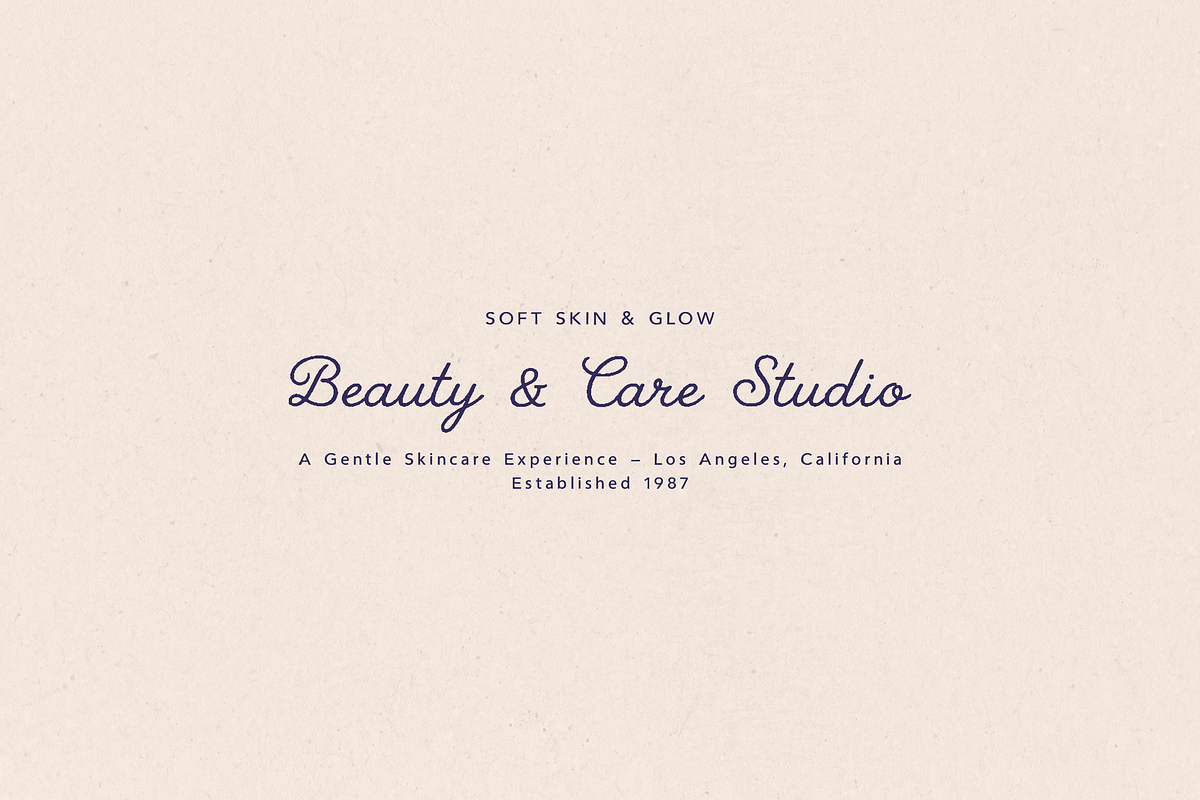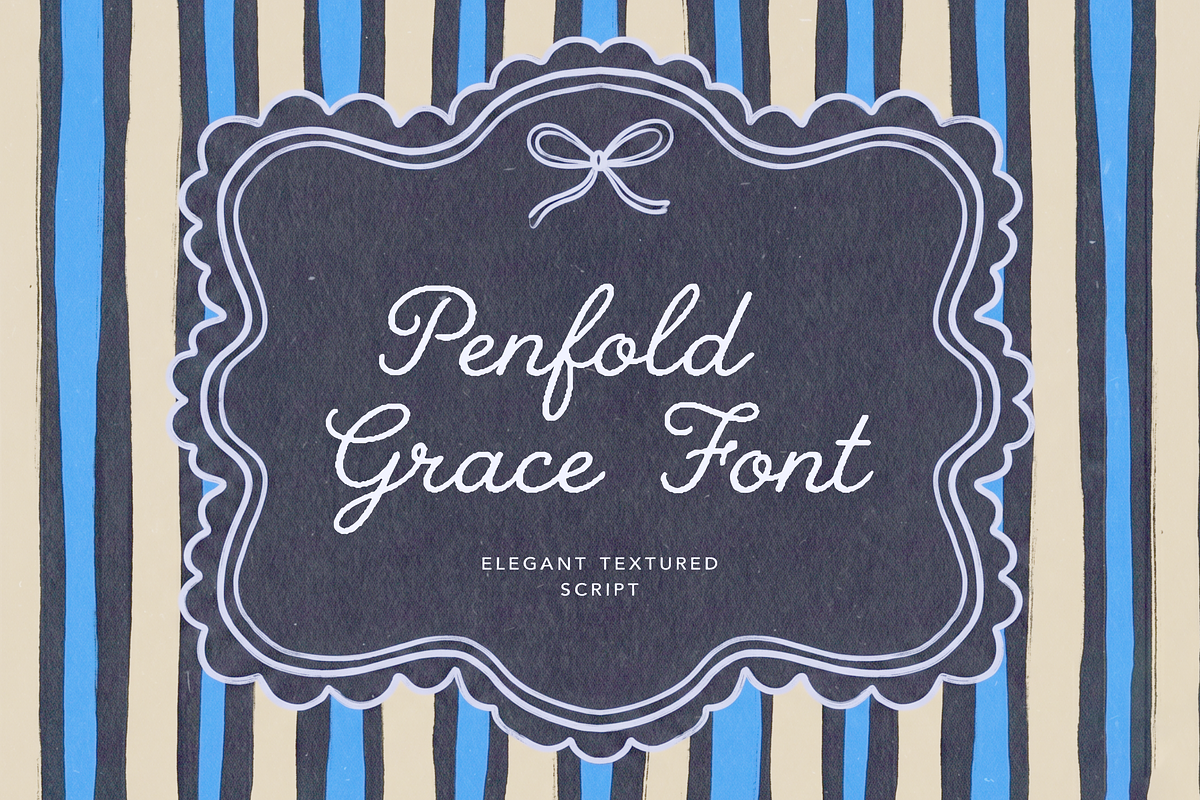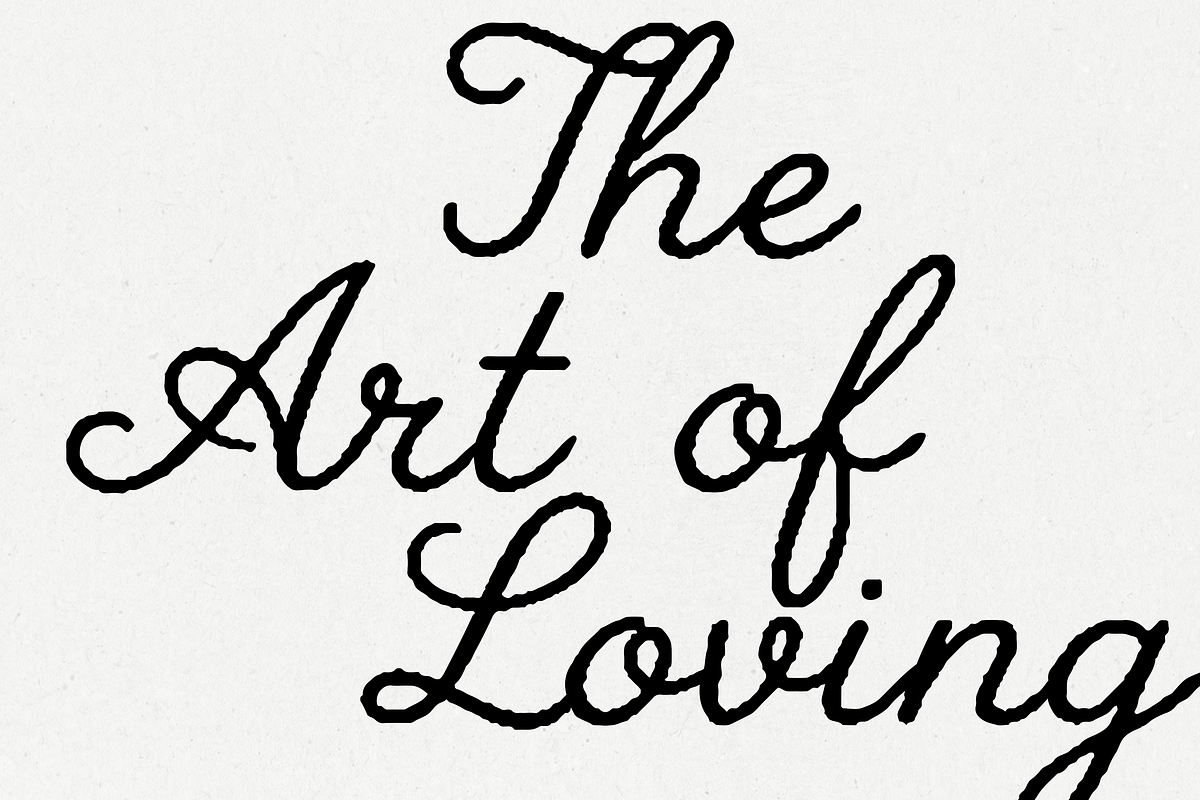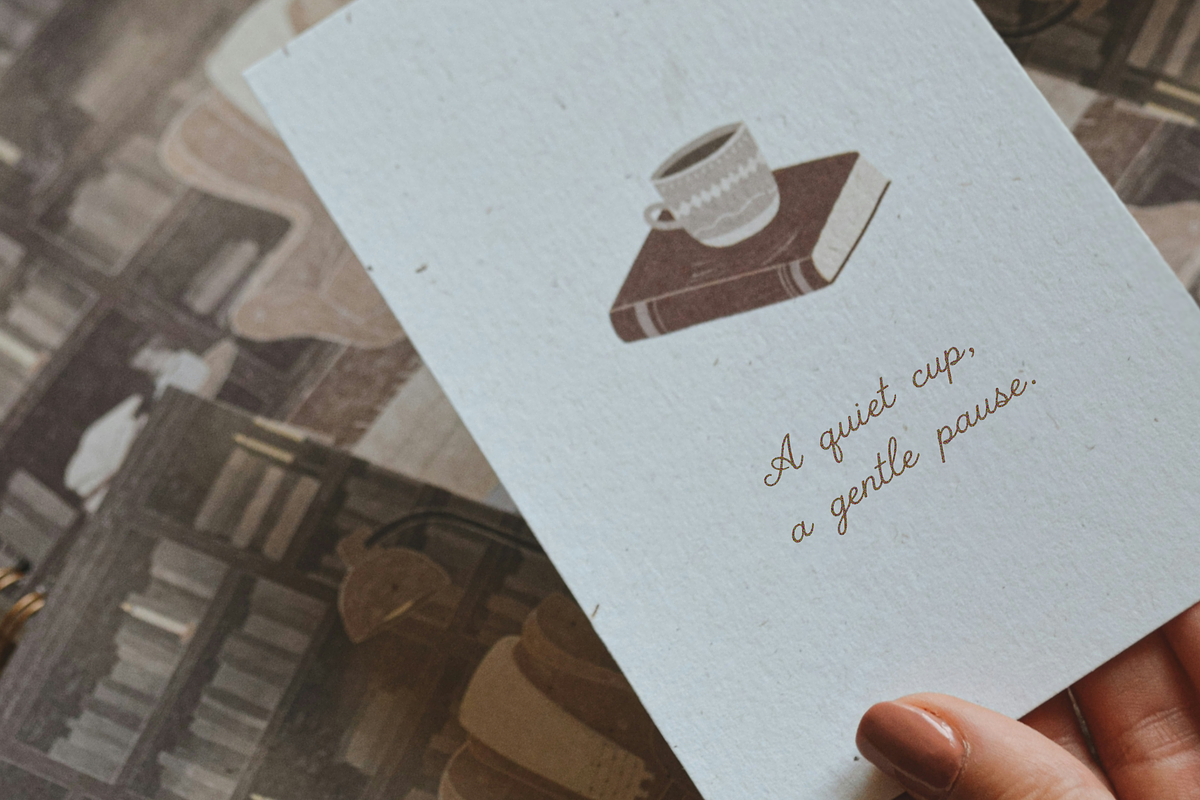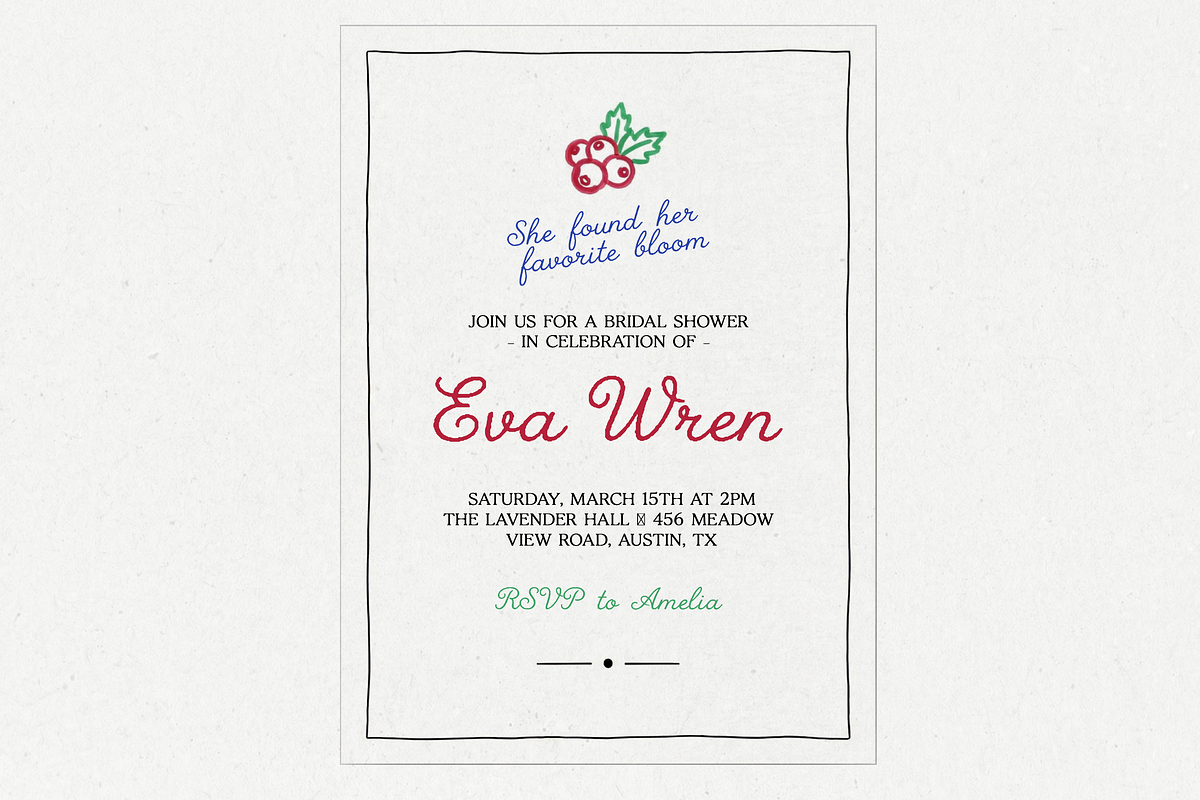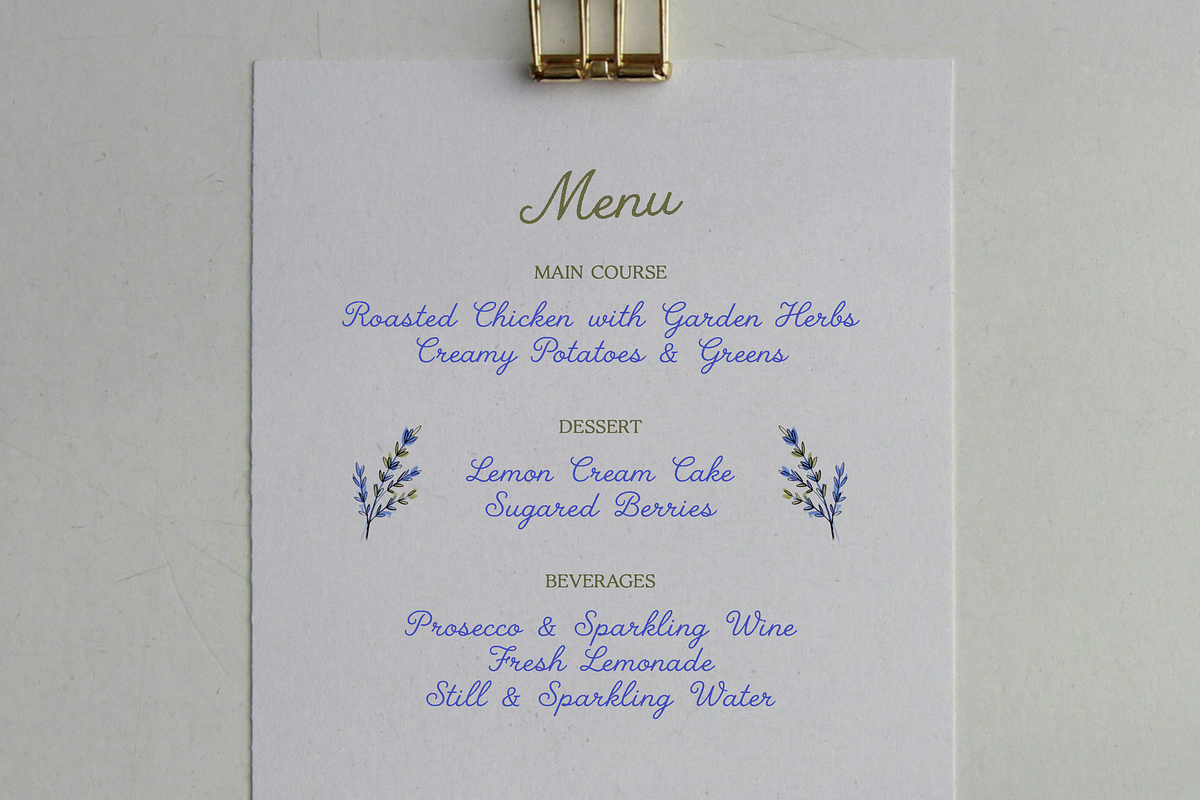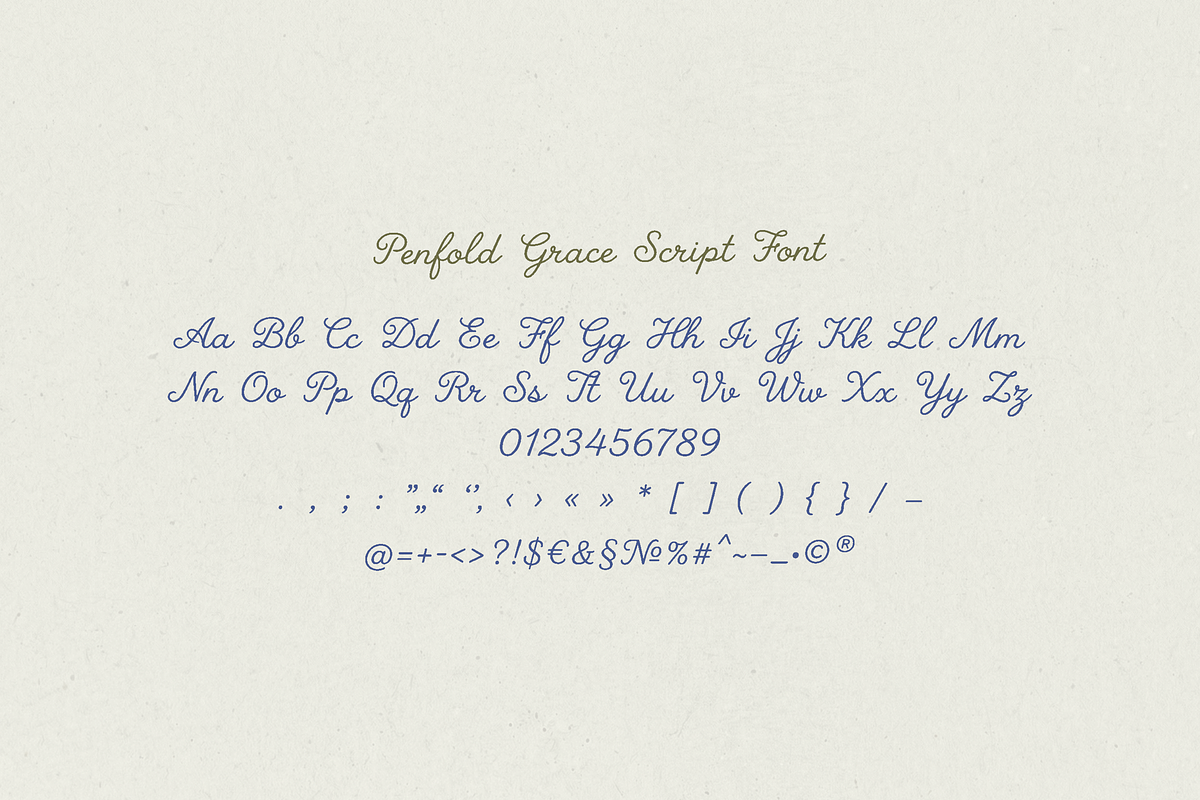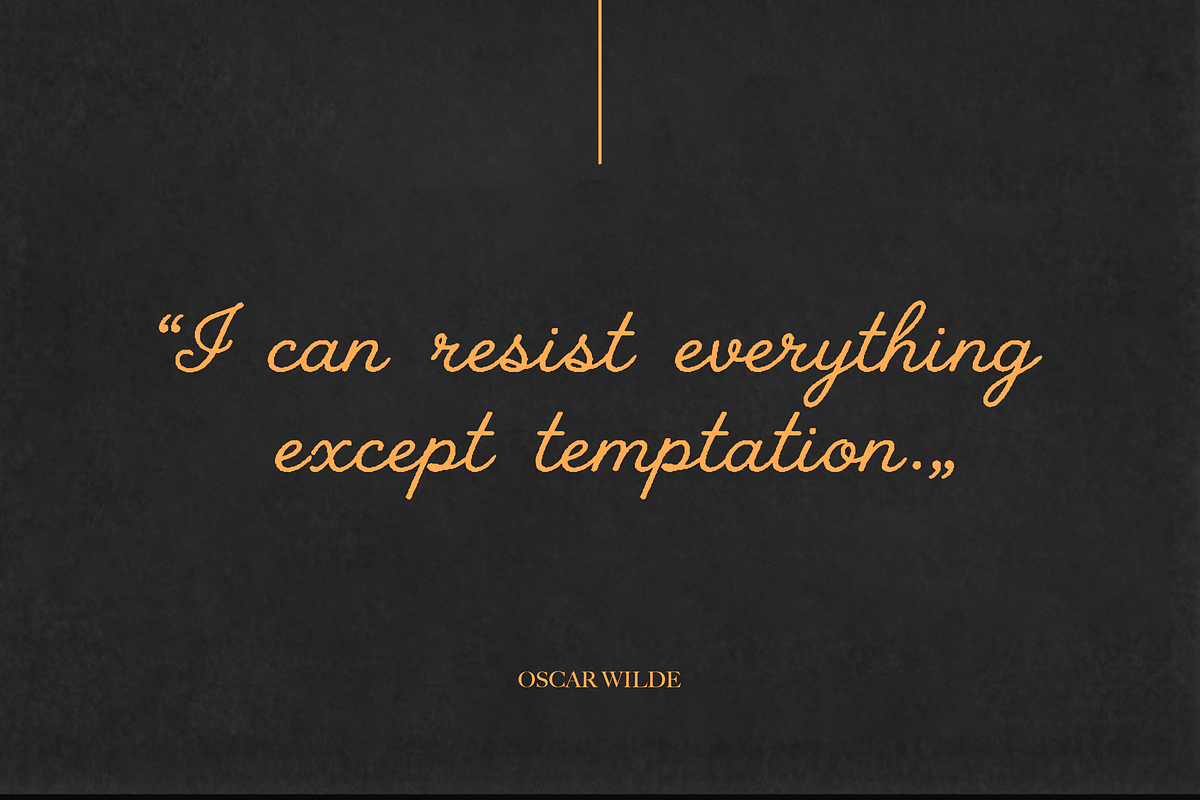
Penfold Grace Font
Penfold Grace is an elegant textured script font with a soft, romantic feel. Designed with delicate curves and a natural handwritten flow, it brings a refined and timeless look to any design.
- Wedding invitations
- Branding & logos
- Social media graphics
- Packaging design
- Quotes & stationery